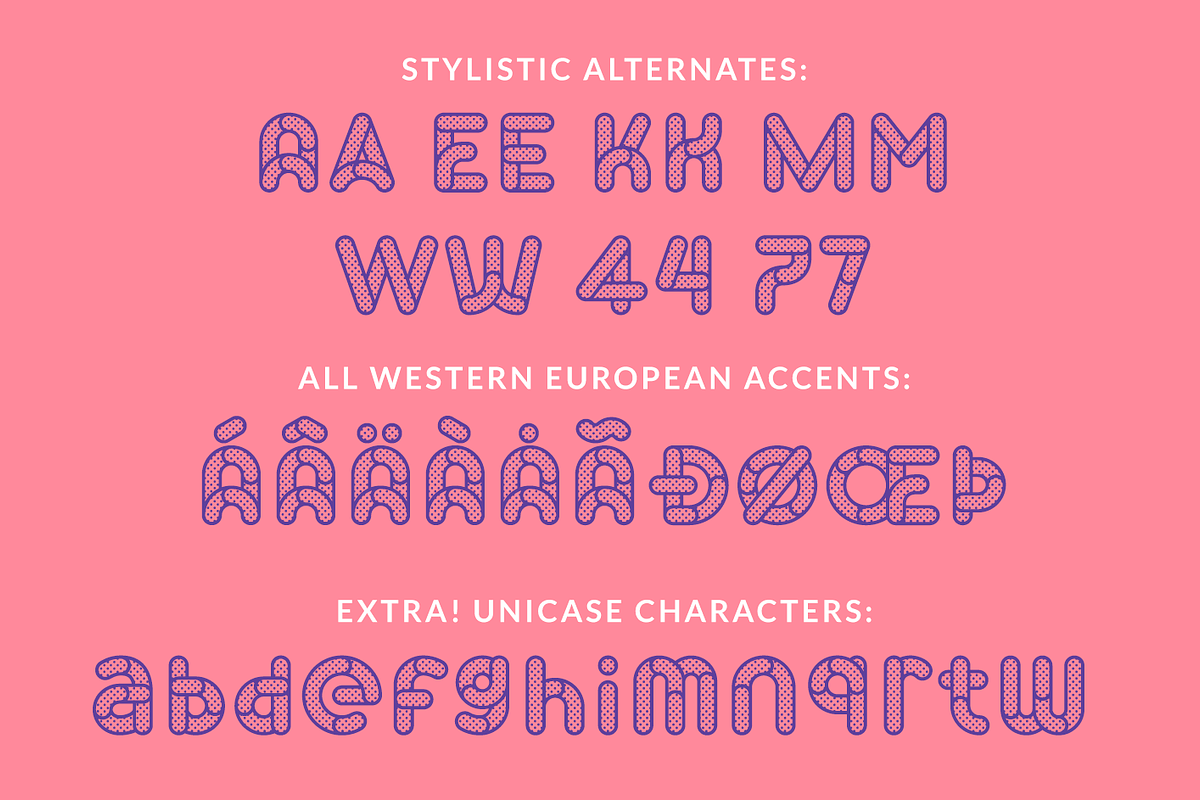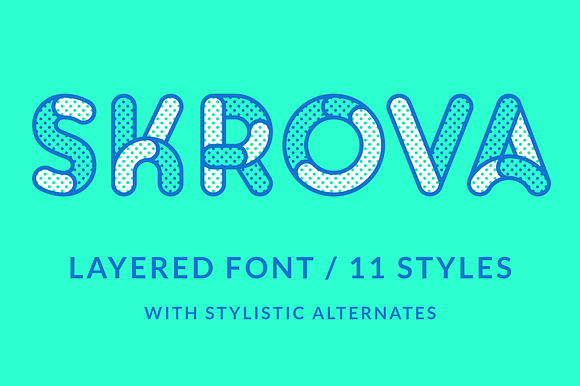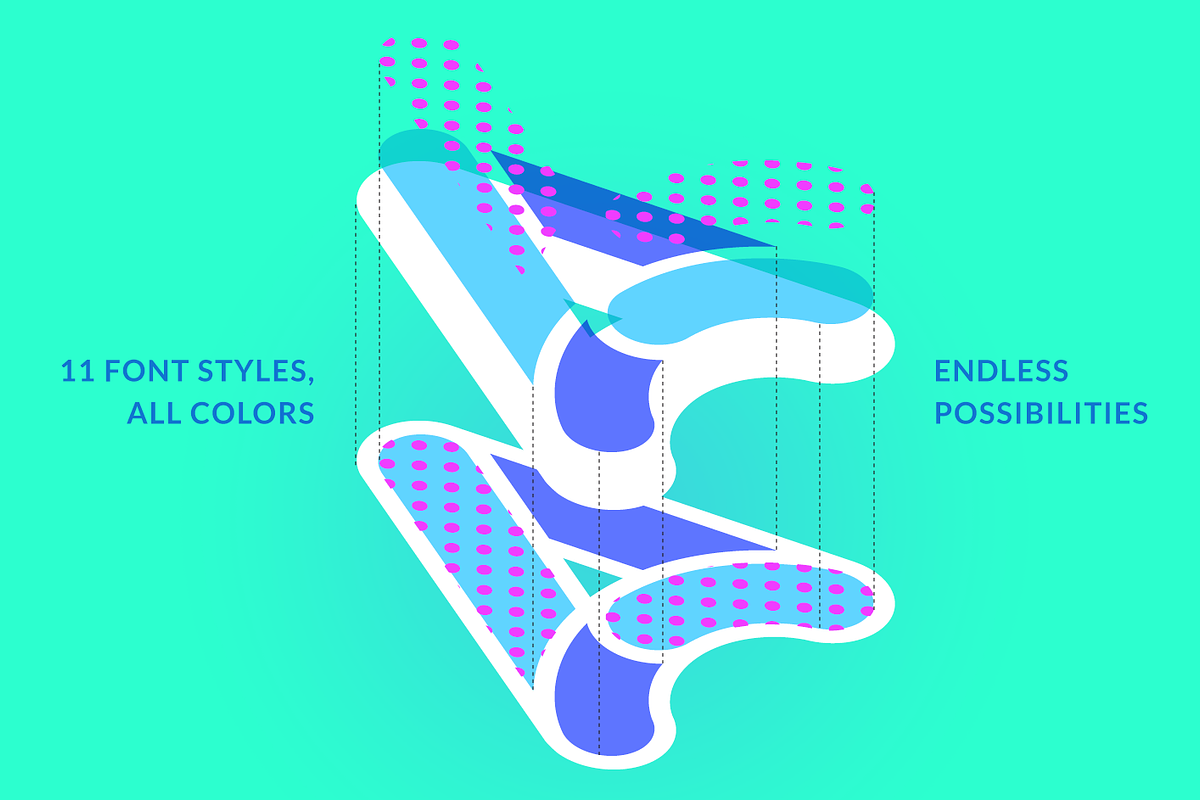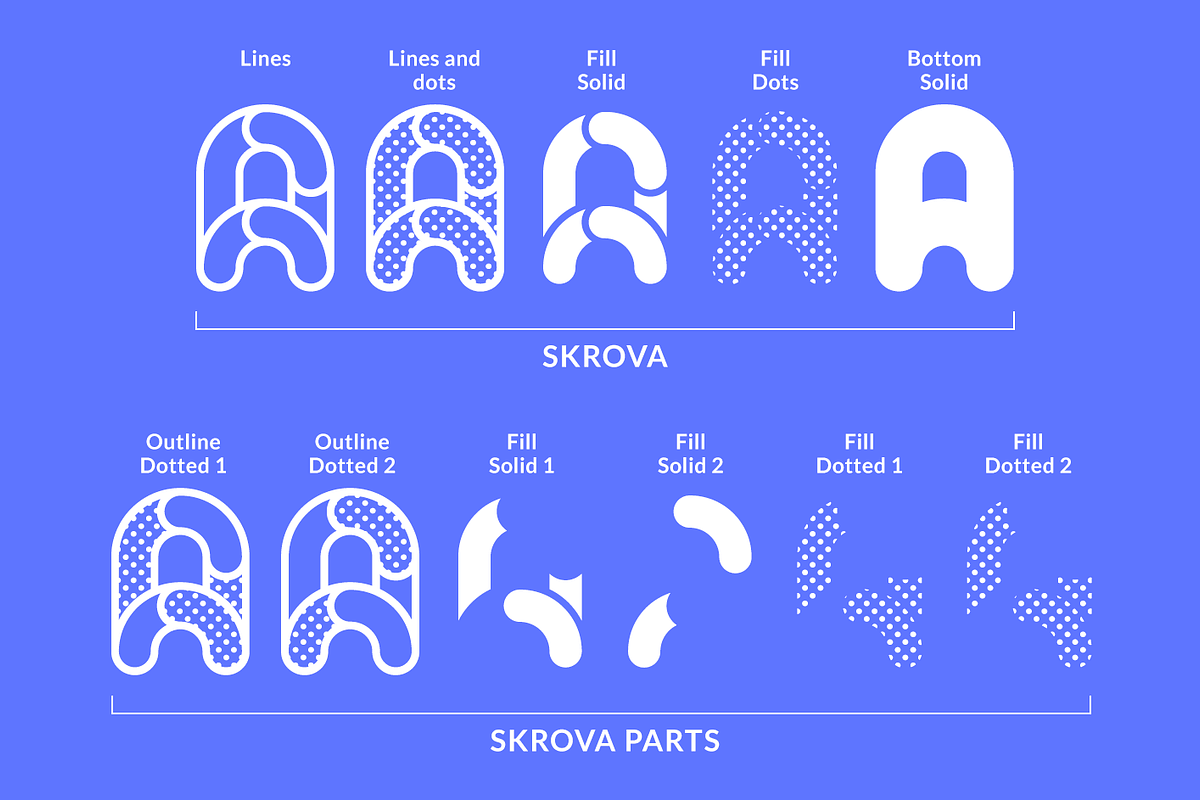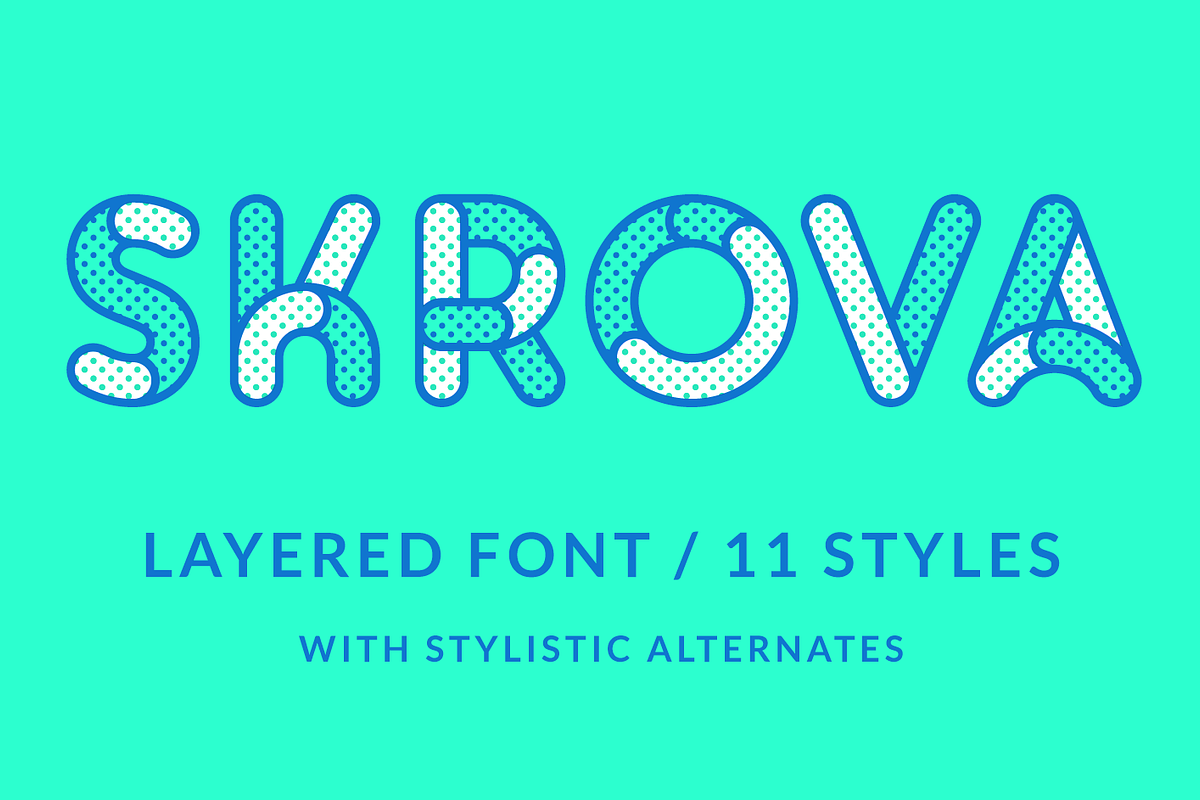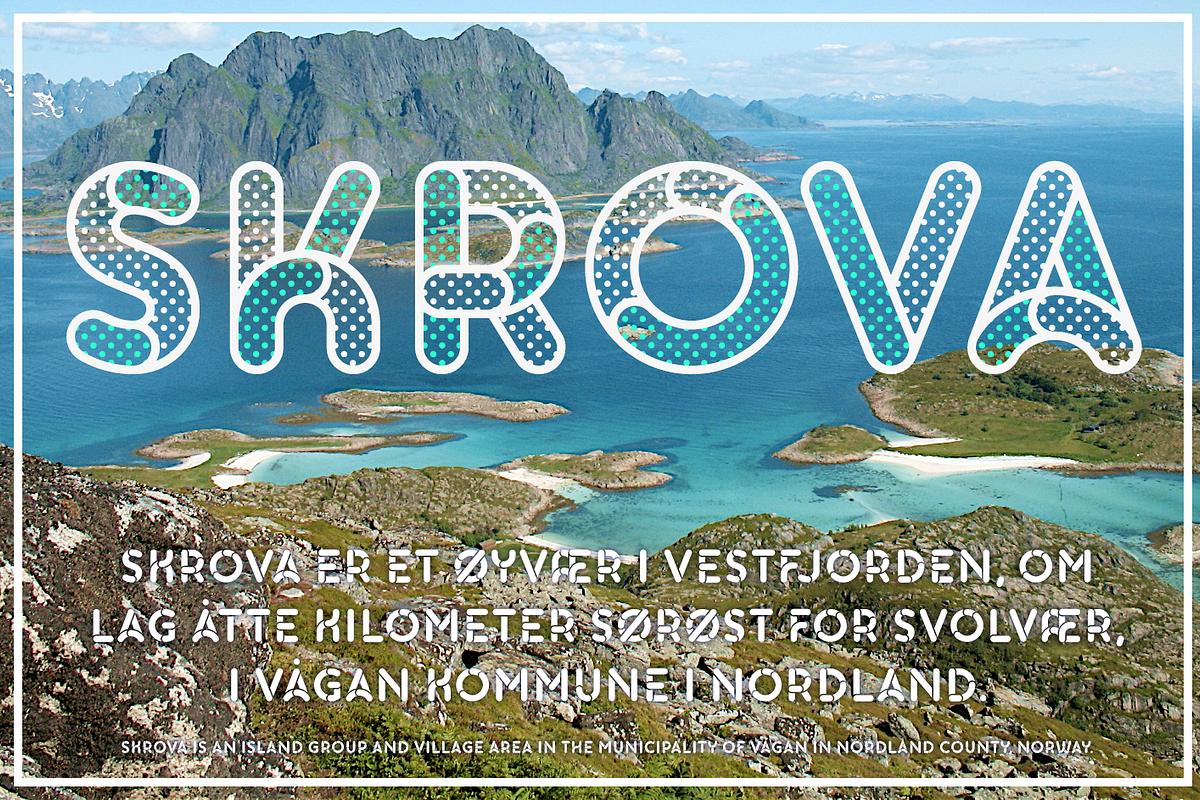
Skrova layered font
Including 11 font styles
All Western European accents
Unicase characters, all uppercase and lowercase
- Skrova Bottom Solid
- Skrova Fill Dotted
- Skrova Fill Solid
- Skrova Lines
- Skrova Lines and Dots
- Skrova Parts Fill Dotted 1
- Skrova Parts Fill Dotted 2
- Skrova Parts Fill Solid 1
- Skrova Parts Fill Solid 2
- Skrova Parts Outline Dotted 1